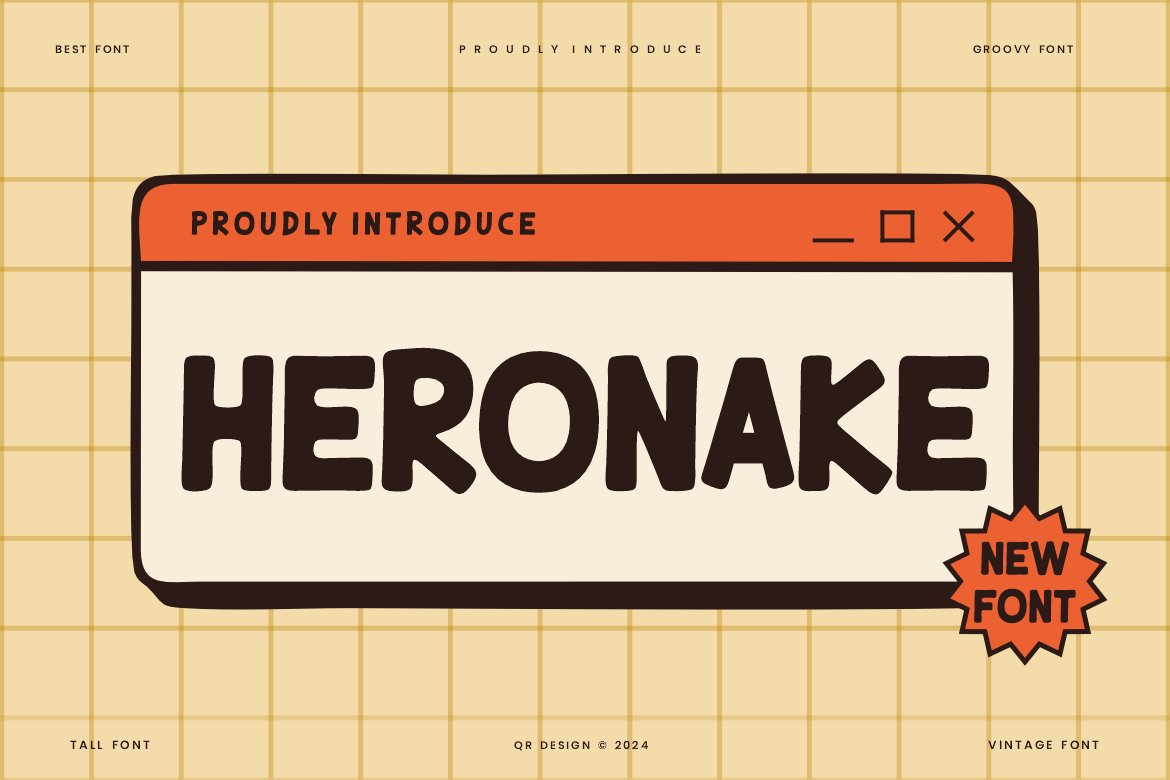
Heronake - Round Font
Heronake Font is a round and authentic display font. The font is suitable for any branding project like poster, logo, sport, and many more. Outstanding in a wide range of contexts.